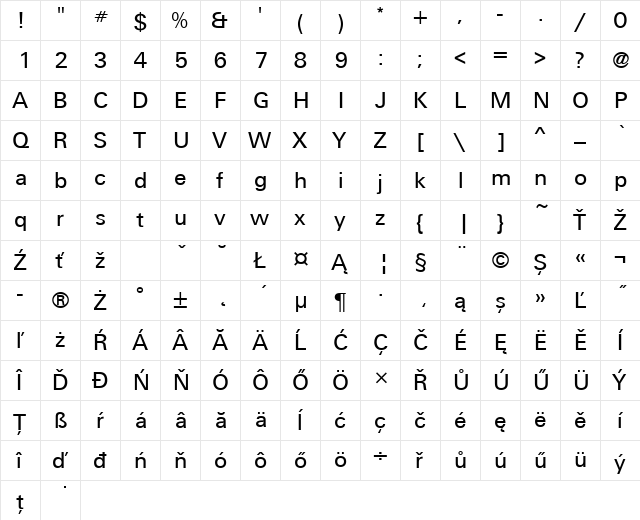
UnitusTEE Regular
Design Context for UnitusTEE Typeface
UnitusTEE is a composed and adaptable typeface that performs quietly and consistently across a wide range of design contexts.